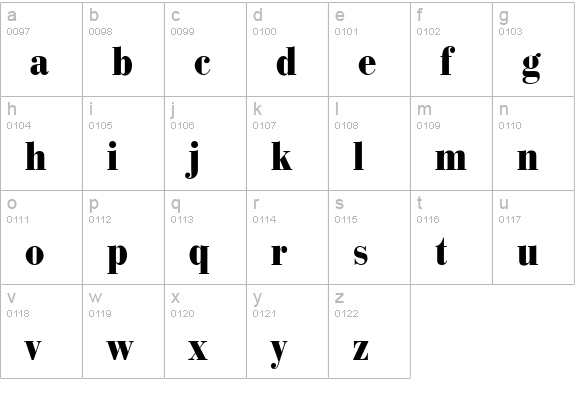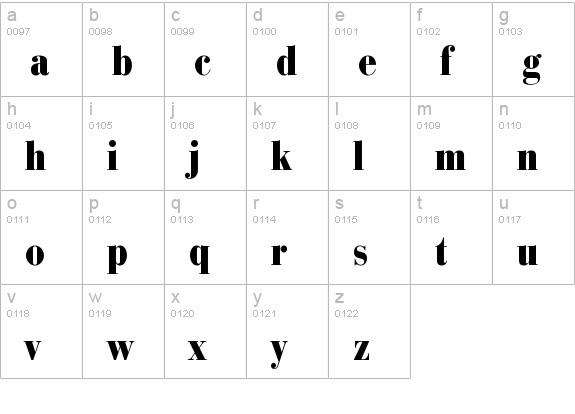
Bodoni Recut BlackCondensed SSi Normal is the standard, neutral variant in the Bodoni typeface family \xE2\x80\x94 well suited to general body text, paragraphs, and standard typographic work.
Bodoni Recut BlackCondensed SSi Normal font exudes elegance and sophistication with its bold and condensed design. Its sleek and modern look makes it perfect for creating eye-catching headlines, titles, and branding materials. The sharp serifs and clean lines of this typeface command attention and convey a sense of luxury. What sets Bodoni Recut BlackCondensed SSi Normal font apart is not just its striking appearance, but also the fact that it is available for free download at FontsMarket.com. This means that designers and creatives can access this premium font without any cost, making it a valuable addition to any font library. Whether used for print or digital projects, Bodoni Recut BlackCondensed SSi Normal font is sure to make a bold statement and elevate the overall aesthetic of any design.